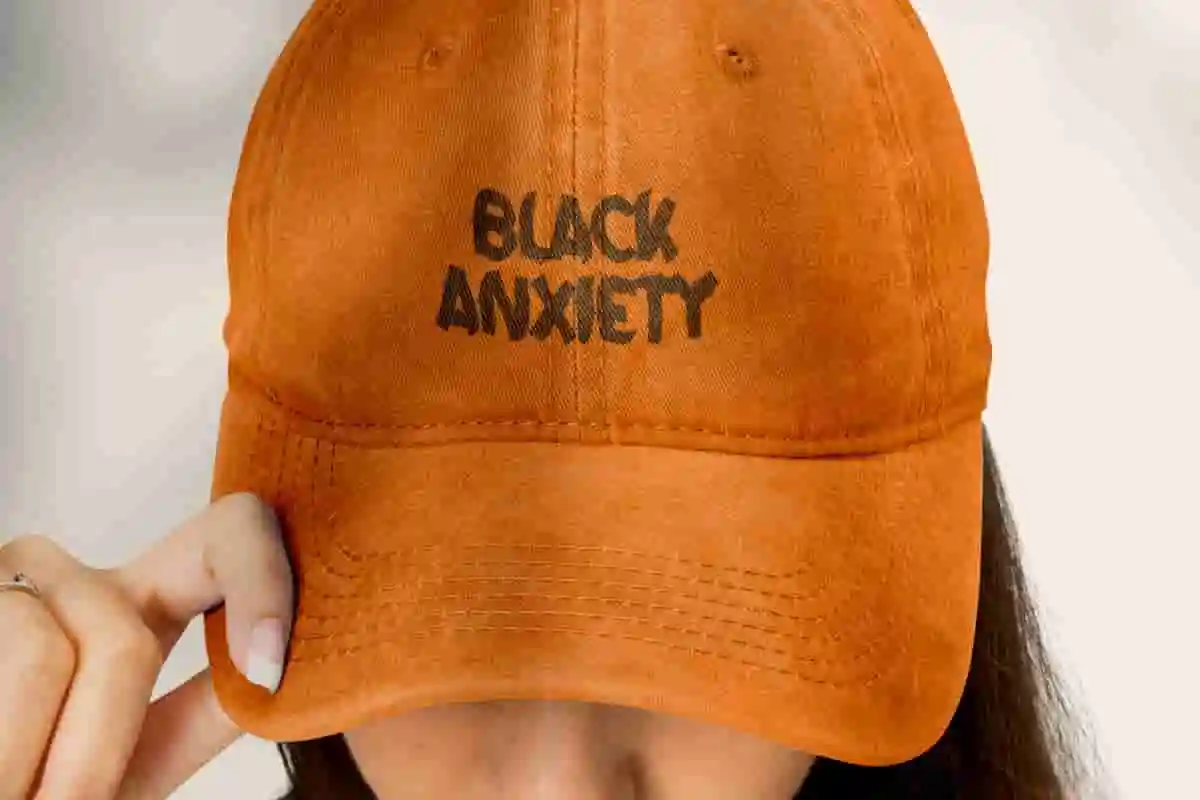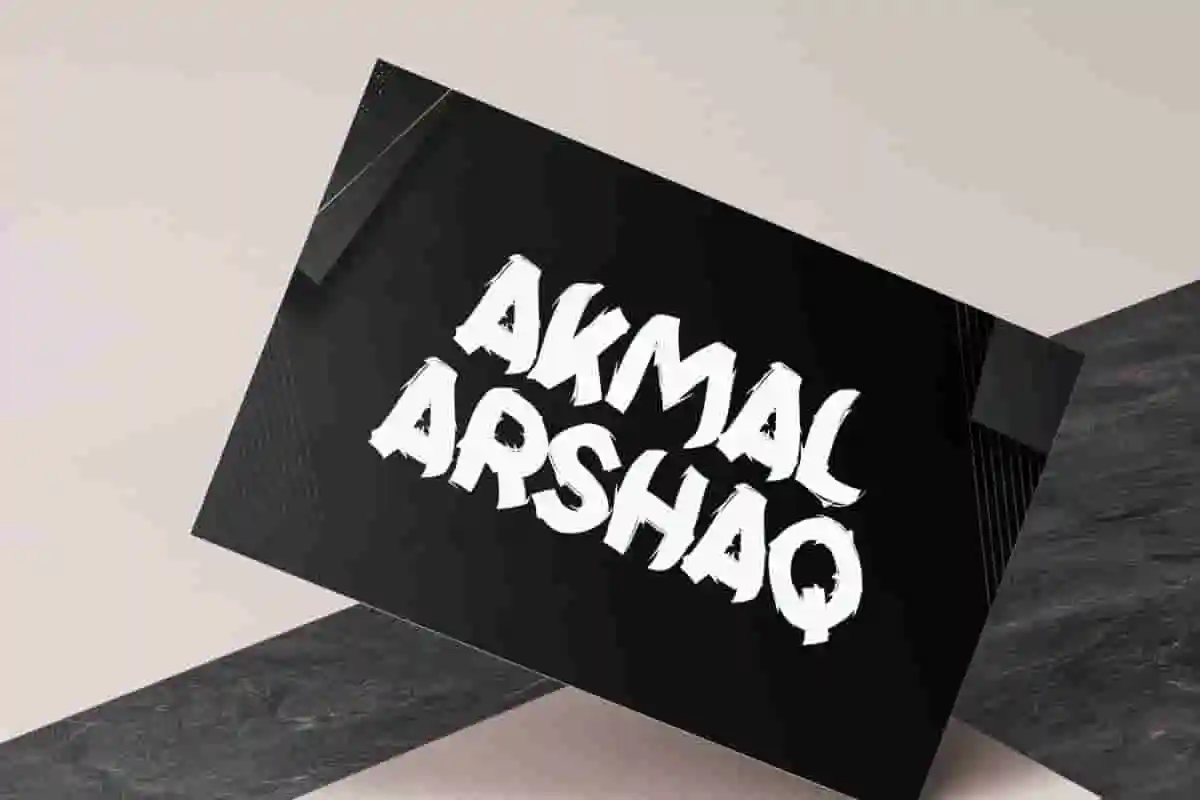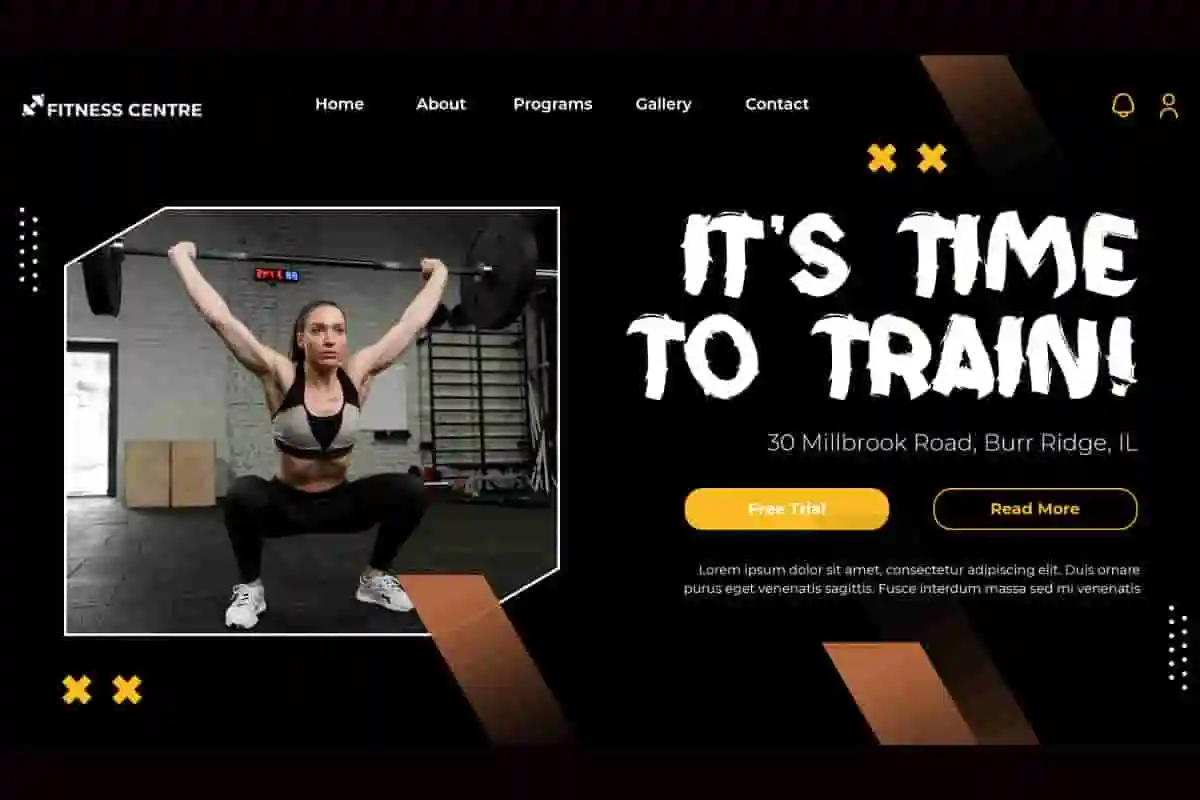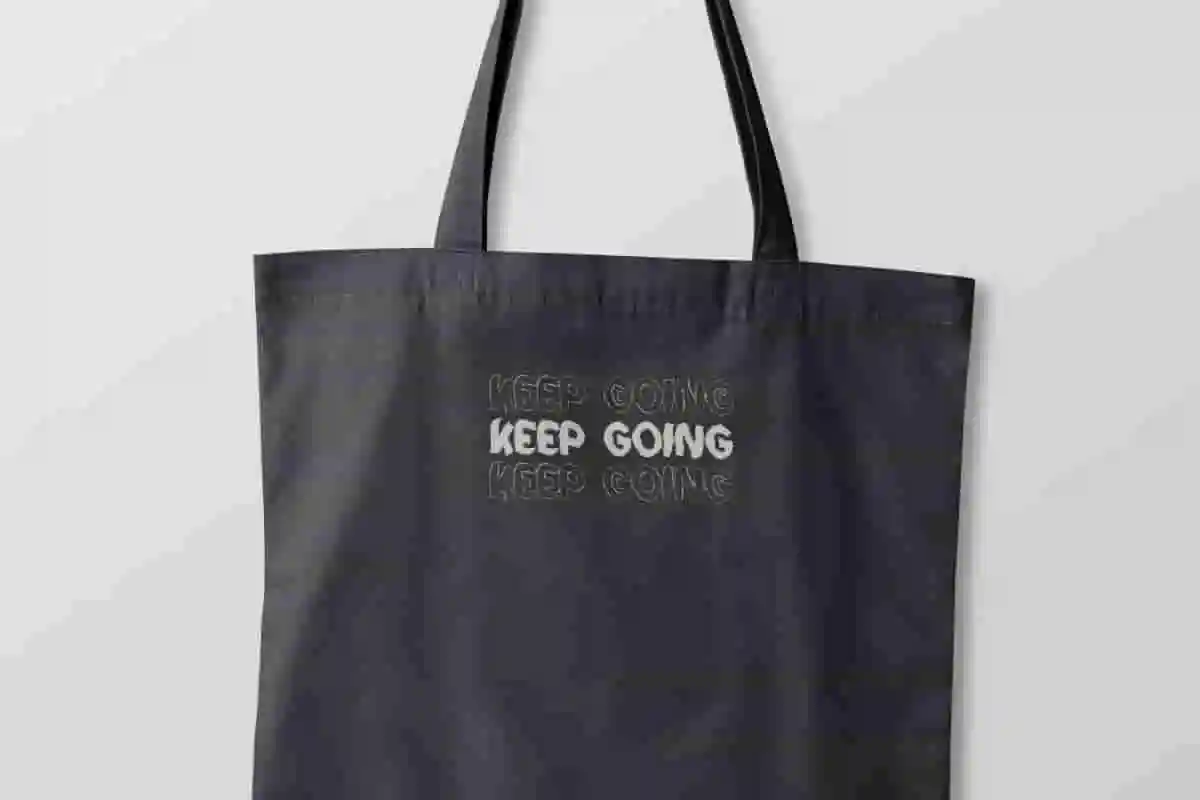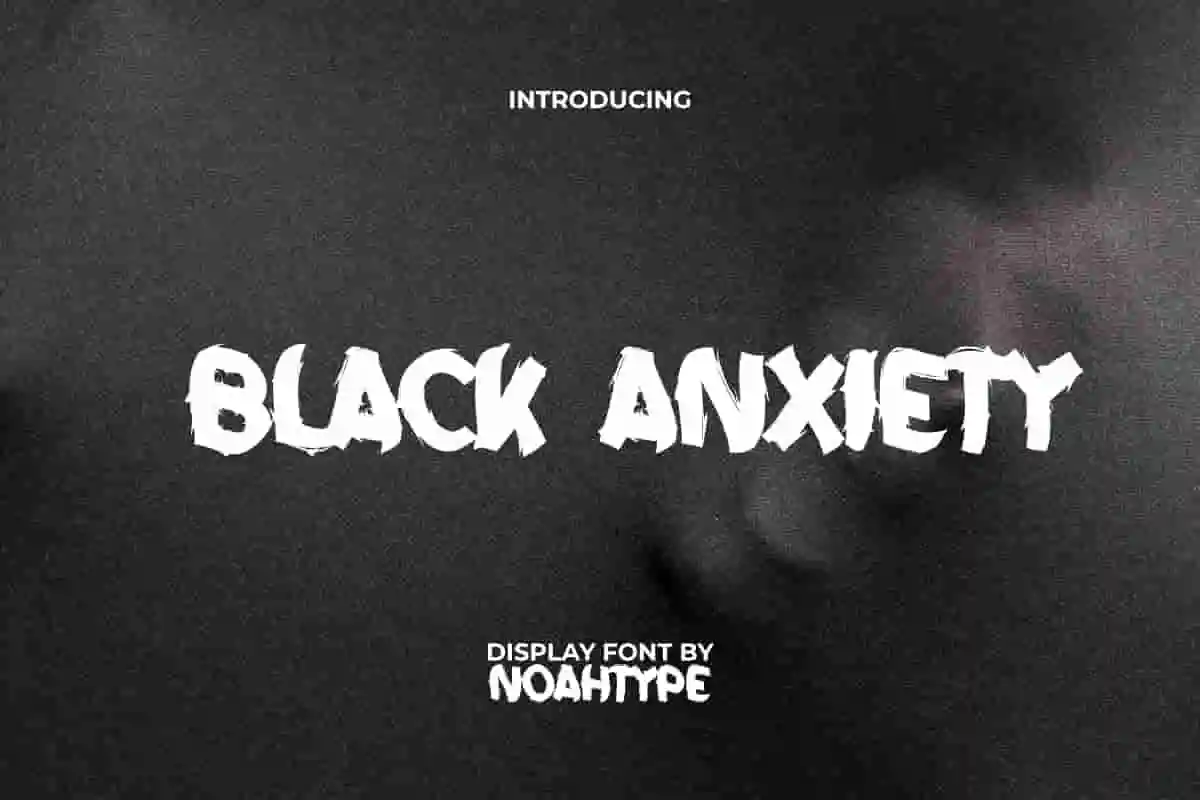
Black Anxiety Font is a bold ALLCAPS black metal horror decorated brush display font by NoahType. Although thick, this font has a few additional lines like brush strokes so that it looks scary. It will be good for any designs, such as brand image, custom design, invitation, label, marketing material, menu, poster, product packaging, quotes, signage, web, and many more!
Black Anxiety Font includes a complete set of ALL CAPS for Uppercase and Lowercase Basic Characters, Numerals, Punctuation, and Symbol. The characters of this font will give horror look and also a perfect choice for many industries, such as accessories, advertising, event or festival, fashion, game, movie, printing, publishing, etc.